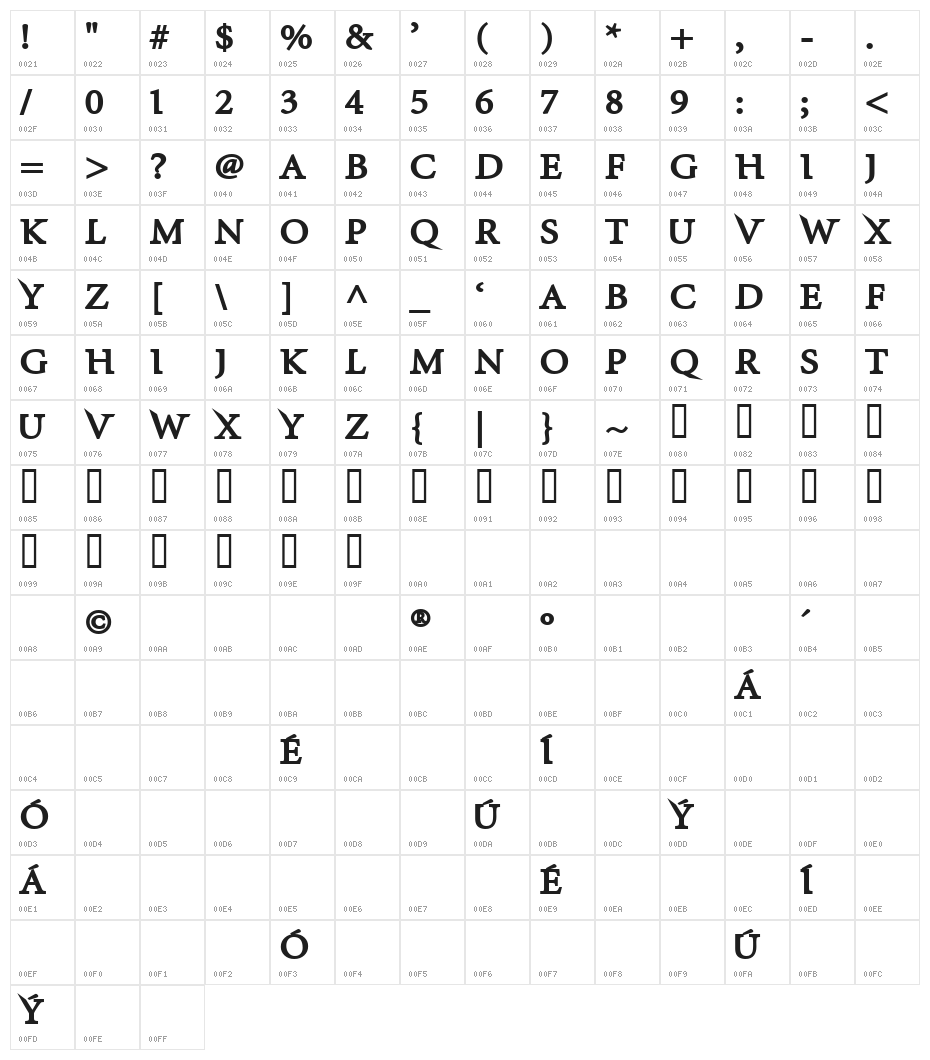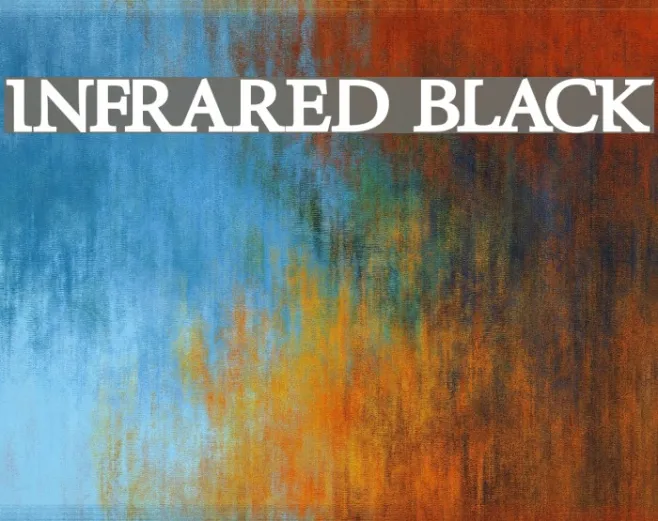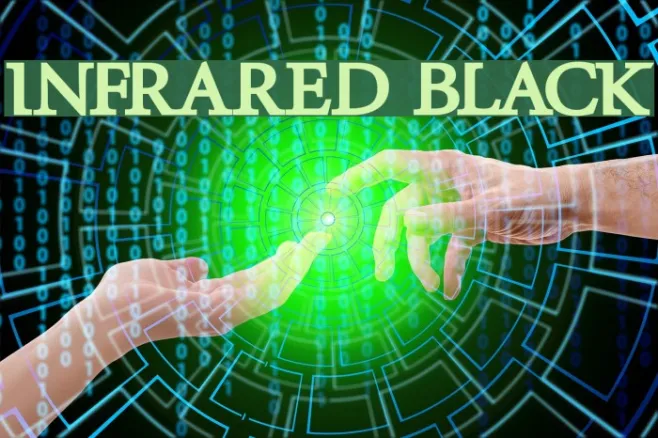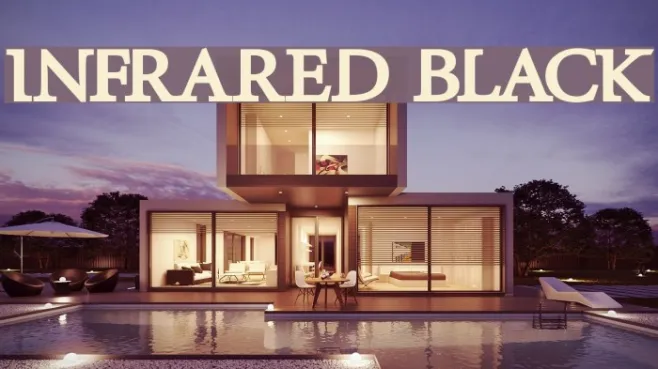
InfraRed Black Font
InfraRed Black Description
This font exhibits a bold and striking serif style, characterized by its strong, angular serifs and high contrast between thick and thin strokes. The uppercase letters are particularly commanding, with a traditional yet modern flair that makes them stand out. The numerals are equally bold, maintaining the same high contrast and angular design. Special characters are designed with the same attention to detail, ensuring consistency across the entire typeface. This font is ideal for making a statement, whether in print or digital media.
| Proposed Projects | Ideal for headlines, branding, logos, and editorial design where a strong, impactful presence is desired. |